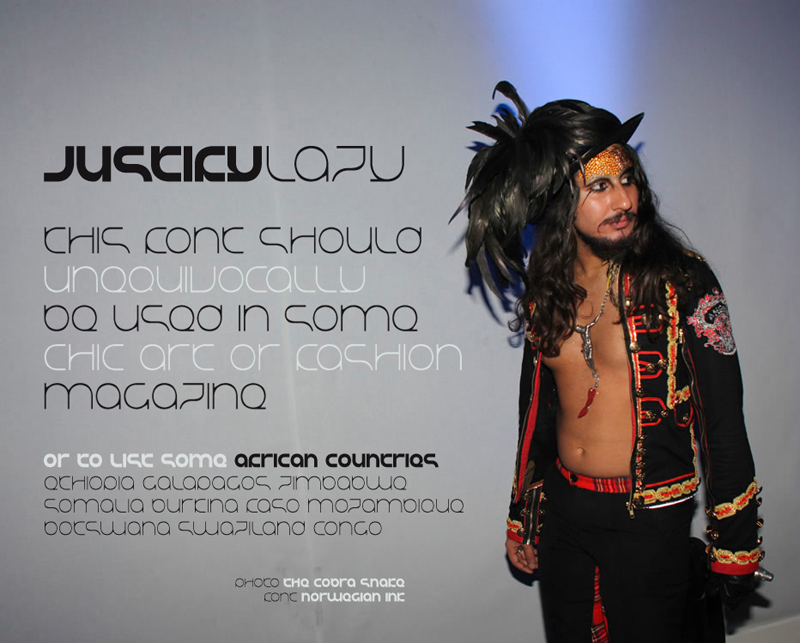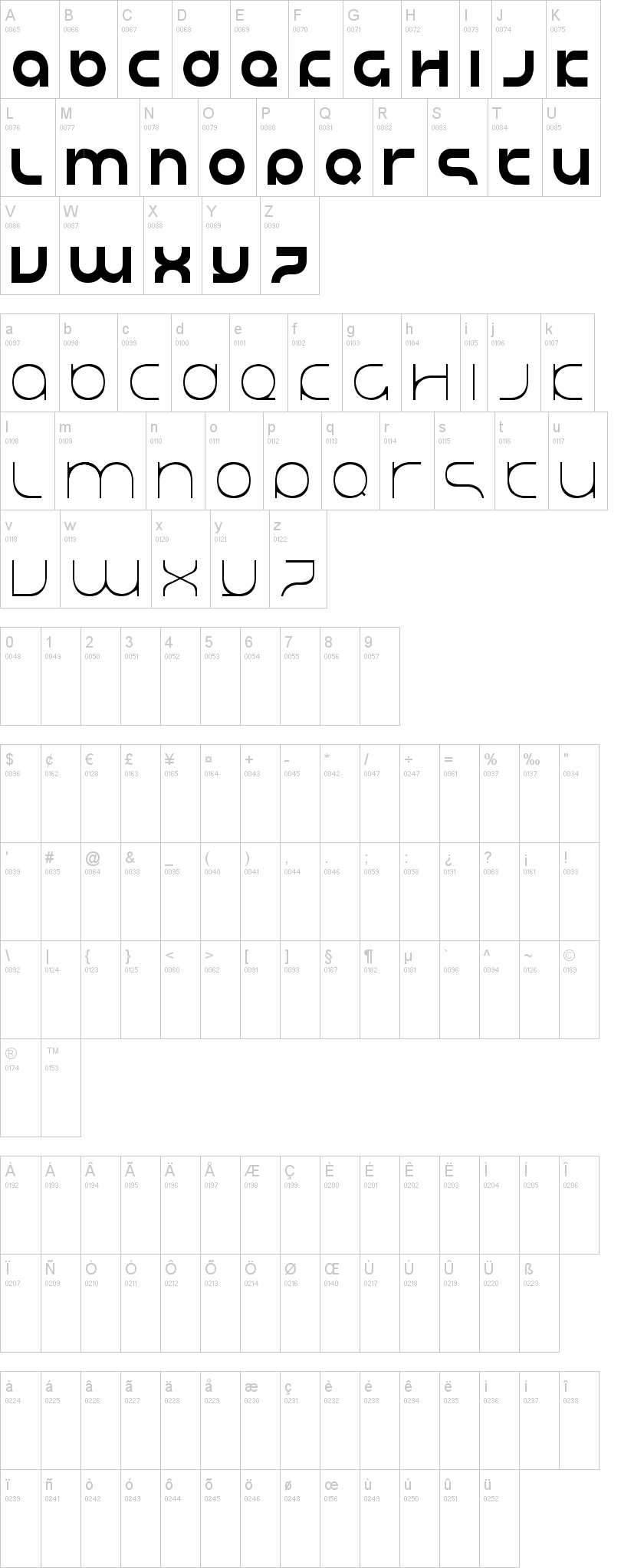
Justify Lazy
Note of the authorJUSTIFYlazy
Designed by Frode Nordbø
Uppercase = Bold, Lowercase = Thin, Readability = Slowercase
Display font only - no numerals or glyphs included.